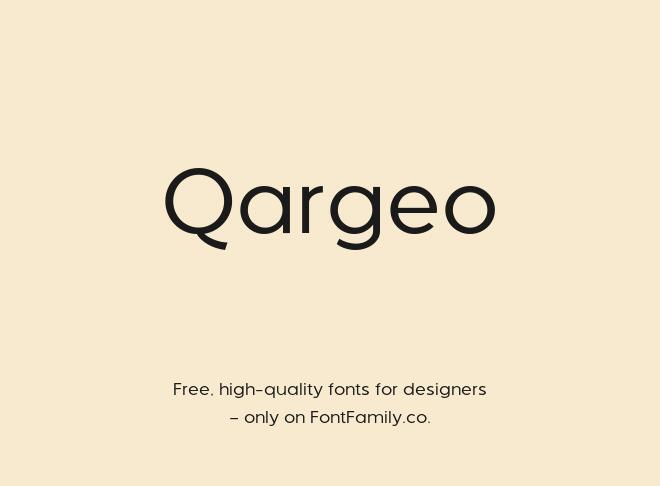
Qargeo Font
Qargeo Font is a modern, geometric and display sans serif typeface that promises to deliver a powerful impact to your design projects. This versatile font draws inspiration from the minimalist design trend, featuring clean lines and simple shapes that make it suitable for a wide range of applications. Whether used in logo design, website headers, or marketing materials, Qargeo Font brings a sense of sophistication and professionalism. Its geometric nature makes it a great alternative to popular fonts like Futura or Avenir. With its open font license, Qargeo Font is a fantastic choice for both commercial and personal use, making it a must-have in every designer's toolkit.